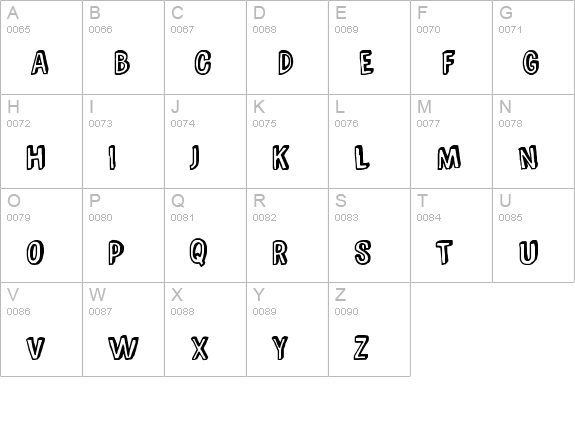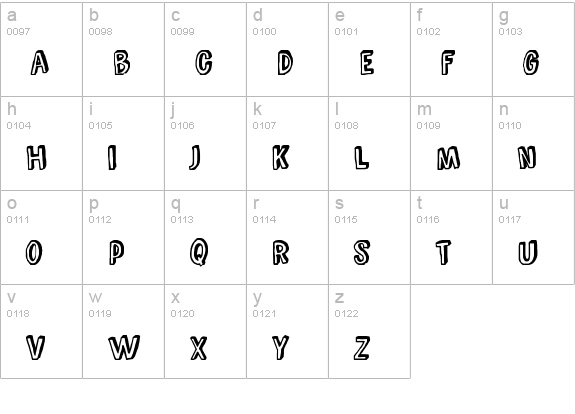
Comic Zine Font Details
Comic Zine is a lively and playful font that brings a touch of whimsy to any design project. With its hand-drawn appearance and charming letterforms, this font captures the essence of a classic comic book style. Comic Zine is perfect for adding a fun and quirky element to titles, headlines, logos, and more. Its unique characters and bold strokes make it easily readable, while still maintaining a sense of personality and character. Whether you're creating a children's book, designing a poster, or crafting a comic strip, Comic Zine is the ideal choice to bring your words to life. Its energetic and youthful vibe will instantly grab the attention of readers and add a sense of excitement to any piece. And the best part? Comic Zine is completely free to download at FontsMarket.com. This means that you can enjoy all the creative possibilities of this font without spending a dime. It's a fantastic resource for designers, students, and anyone looking to add a touch of fun to their projects. So why wait? Go ahead and unleash your creativity with Comic Zine. Download it for free at FontsMarket.com and start adding a splash of personality and playfulness to your designs.